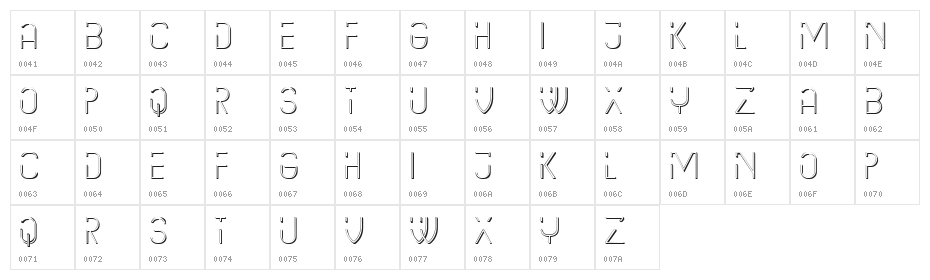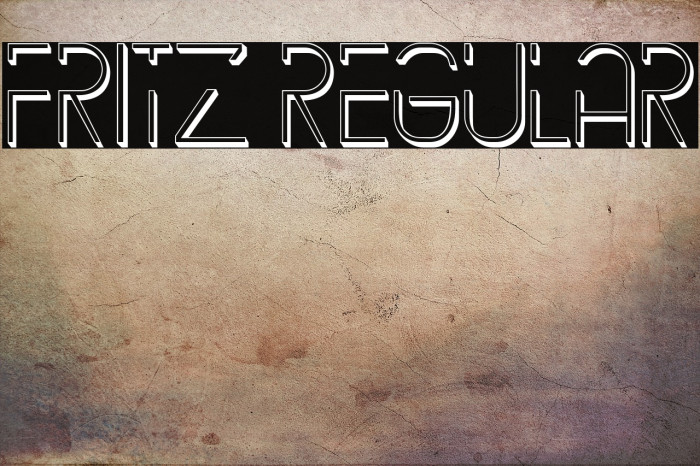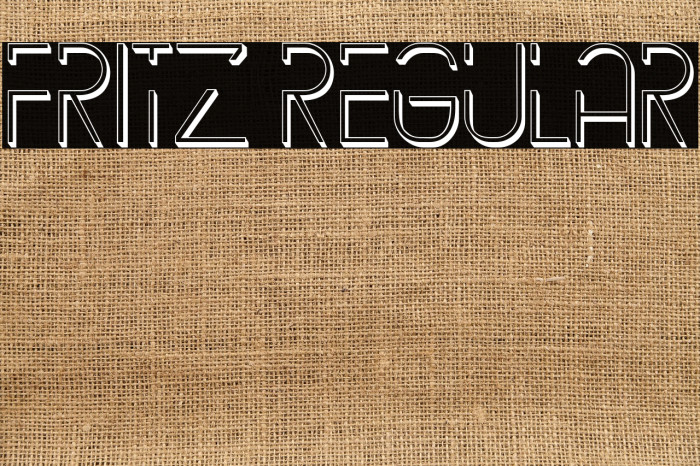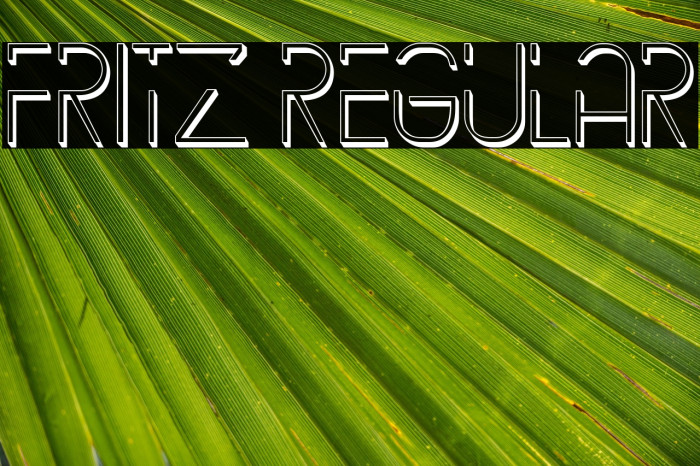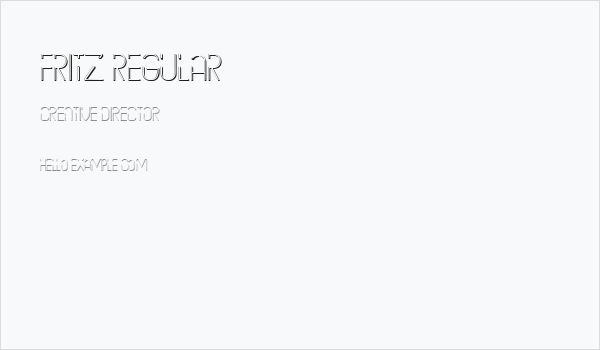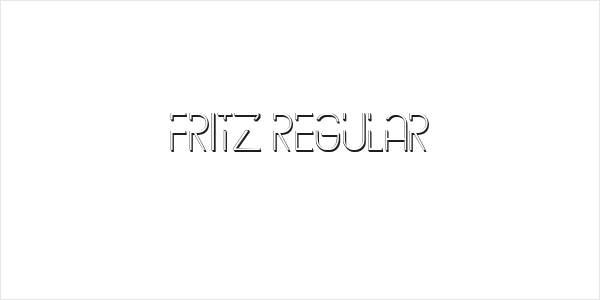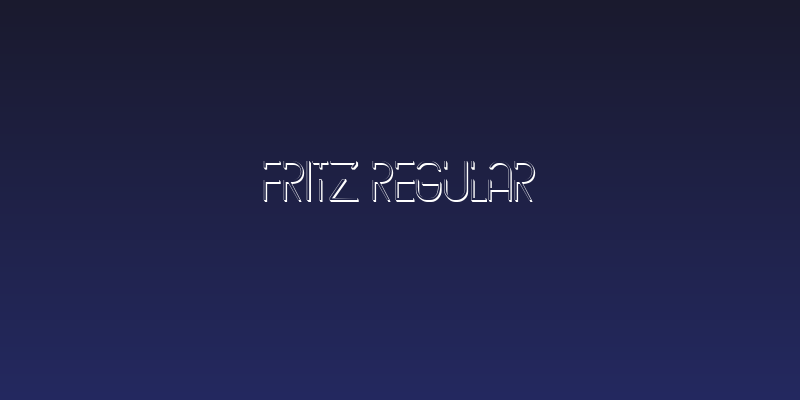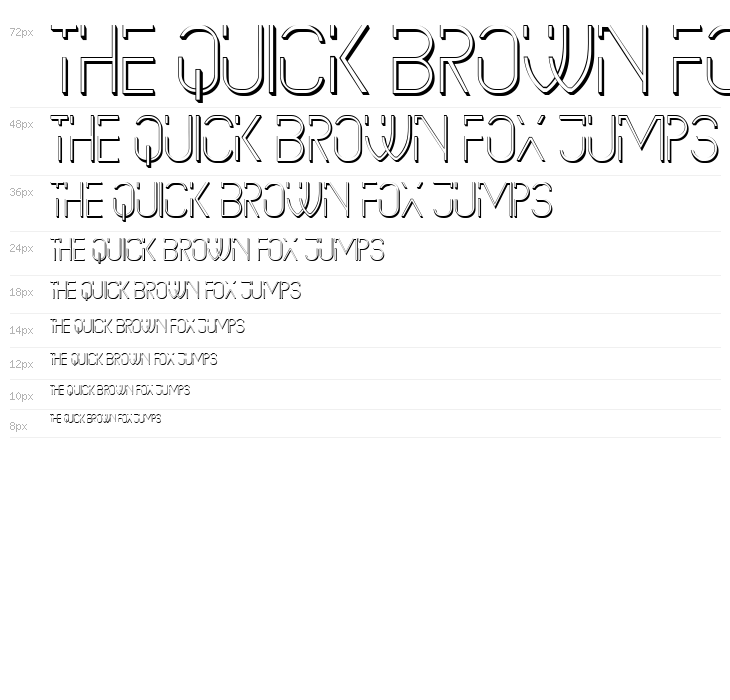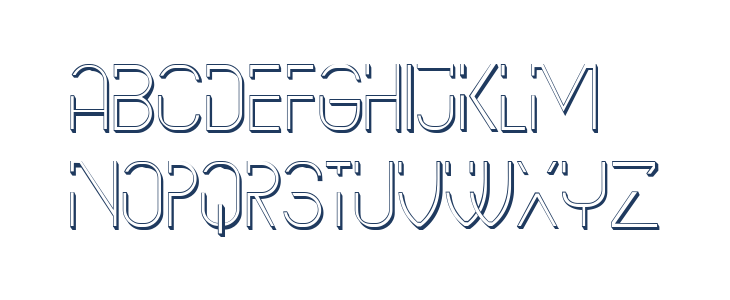
Fritz Regular Font
Fritz Regular Description
This font features a modern, geometric design with a unique hollow effect, creating a sense of depth and dimension. The characters are constructed with clean, straight lines and sharp angles, giving it a futuristic and technical appearance. The uppercase letters are uniform in height, while the lowercase letters maintain a consistent style, enhancing readability. The numbers and special characters follow the same design principles, ensuring a cohesive look across all glyphs. The font's distinct style makes it suitable for projects that require a contemporary and innovative touch.